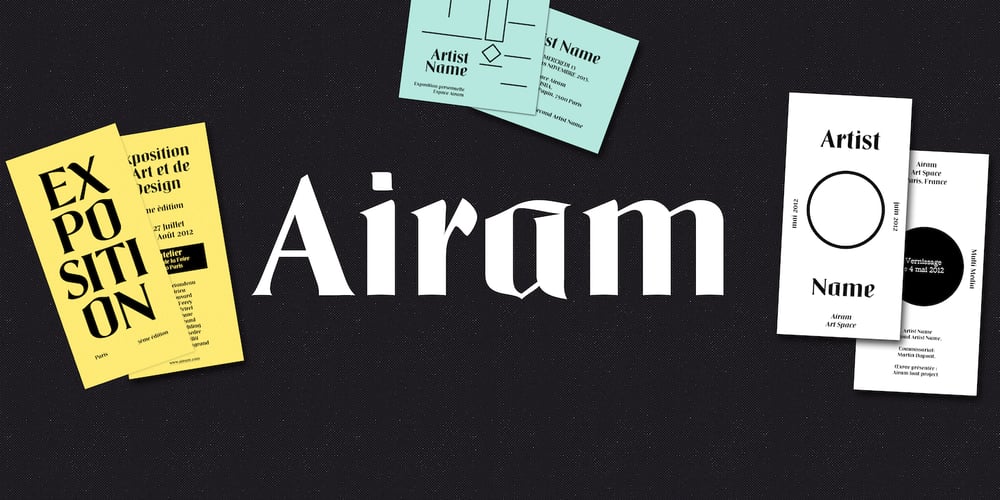
Airam Font Family was designed by Maria Martina Schmitt and published by Linotype. Airam contains 1 styles and family package options. Maria Martina Schmitt was born in Vienna, Austria in 1950. Since 1998, she has been working as a freelance designer, focusing on cultural collateral, economic publications, illustration, type design, and logo design. Airam blends contemporary legibility with historic blackletter forms, creating a contemporary text face that speaks to the old European past. Airam certainly appears darker than most other contemporary text faces. Airam’s letterforms are slightly broken, too. They display angled joints in lieu of smooth curves. This “broken” aspect actually aids legibility at smaller point sizes. While Airam may not be suitable for setting whole books or newspapers, this font will add a splendid touch to short tracts of small text. Additionally, Airam looks superb in large headlines.